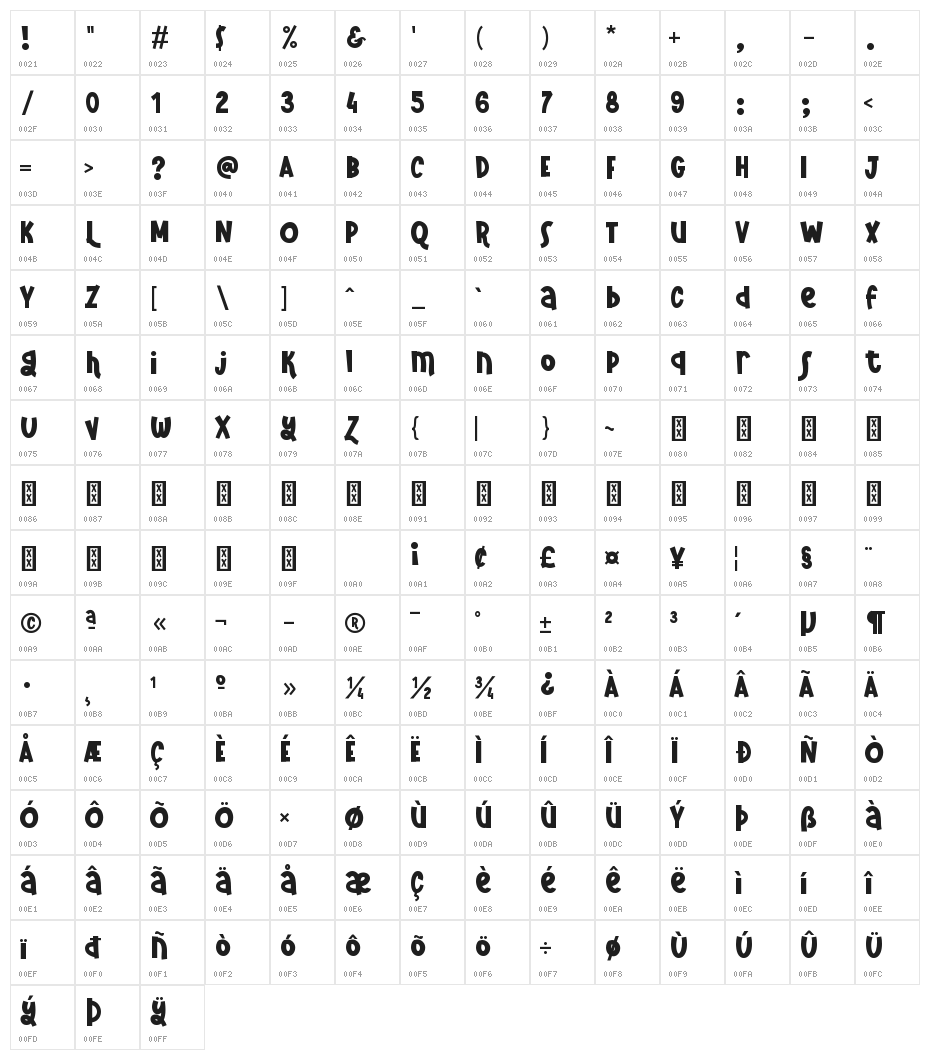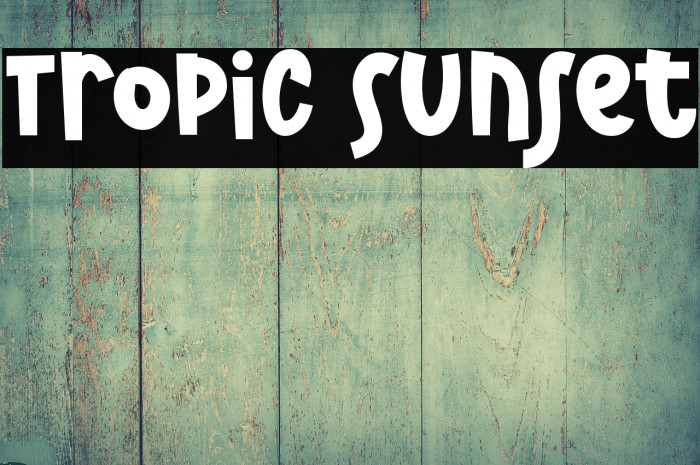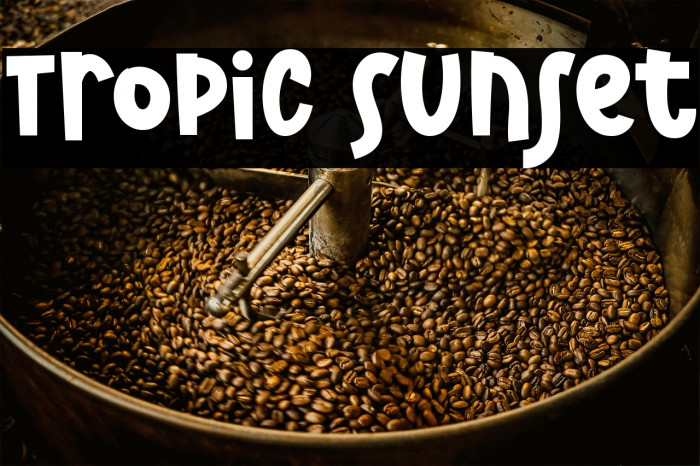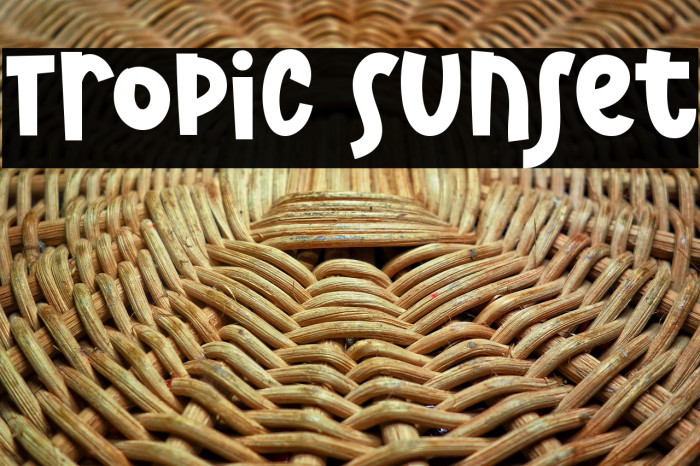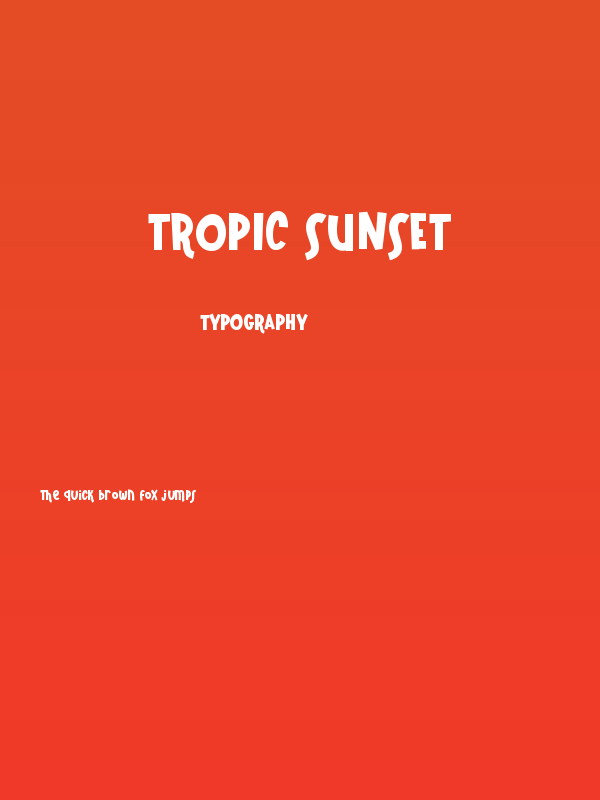
Tropic Sunset Font
Tropic Sunset Description
A bold, playful font with a tropical, relaxed vibe, featuring uneven strokes and a hand-drawn appearance.
| Proposed Projects | Posters, event flyers, beach-themed designs. |